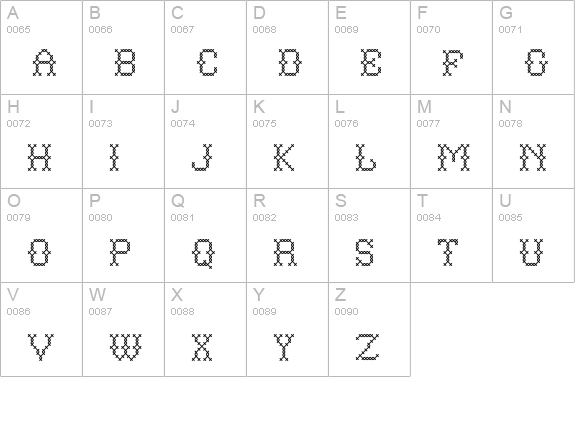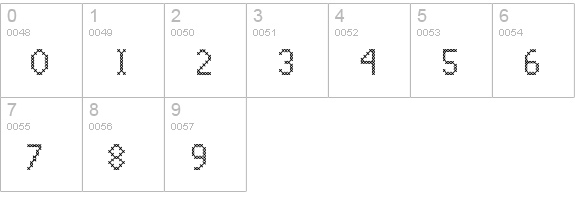
P22FolkArt-Cross Font Details
P22FolkArt-Cross font is a remarkable typeface that effortlessly captures the essence of traditional folk art. With its delicate strokes and intricate details, this font brings a touch of rustic charm to any design project. Each letter is beautifully crafted with a cross-stitch effect, invoking a sense of craftsmanship and nostalgia. The P22FolkArt-Cross font is perfect for adding a unique and whimsical touch to your creative endeavors. Whether you're designing invitations, greeting cards, or creating an artistic masterpiece, this font will add that extra flair that sets your work apart. One of the best things about the P22FolkArt-Cross font is that it is free. Yes, you read that right! This incredible font is freely available to download at FontsMarket.com. It's a fantastic opportunity to enhance your designs without any cost. So, why wait? Give your projects a delightful folk art touch with the P22FolkArt-Cross font. Download it for free today at FontsMarket.com and let your creativity soar!